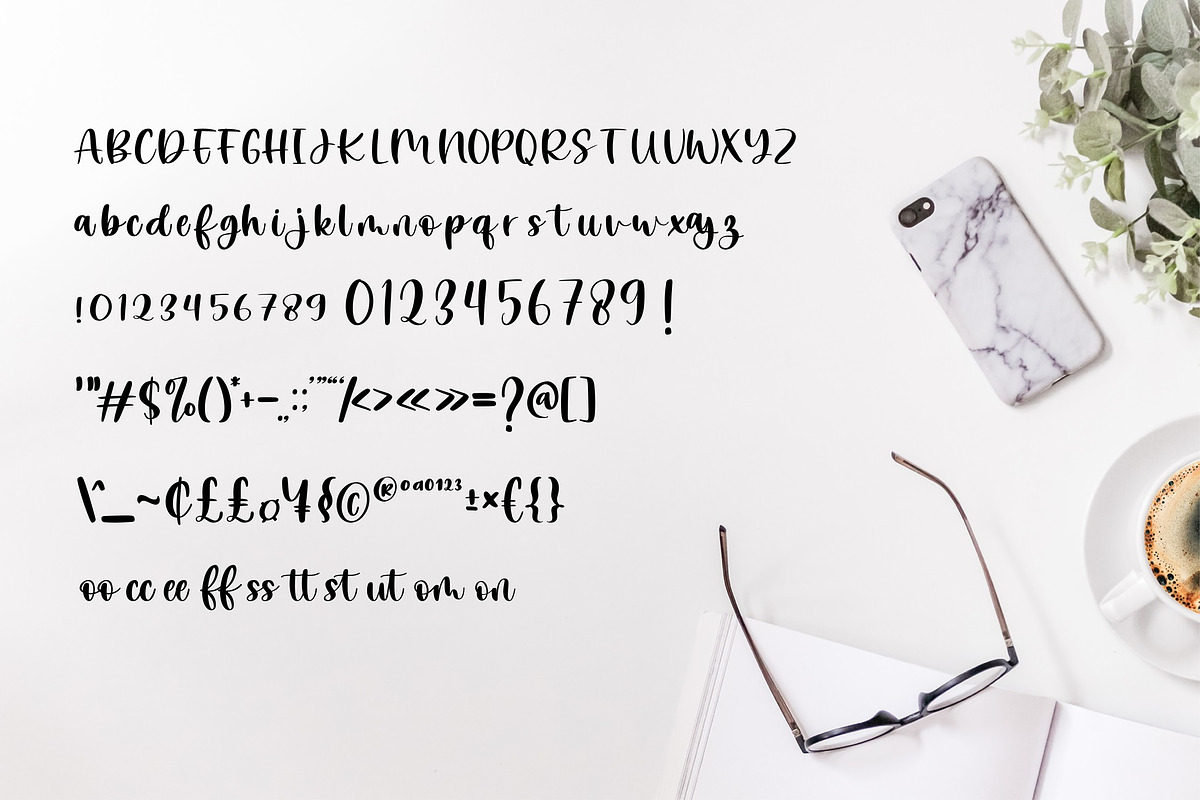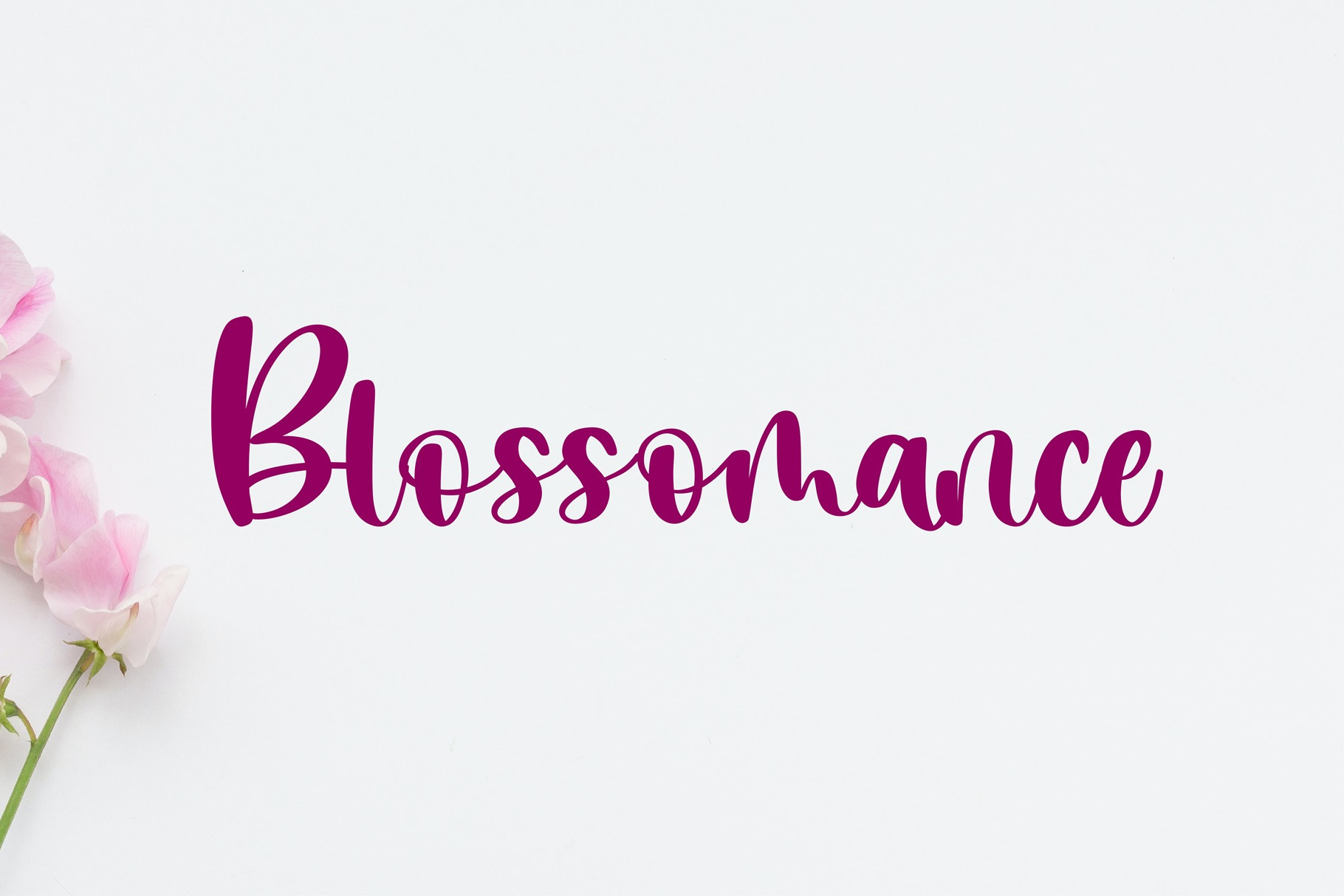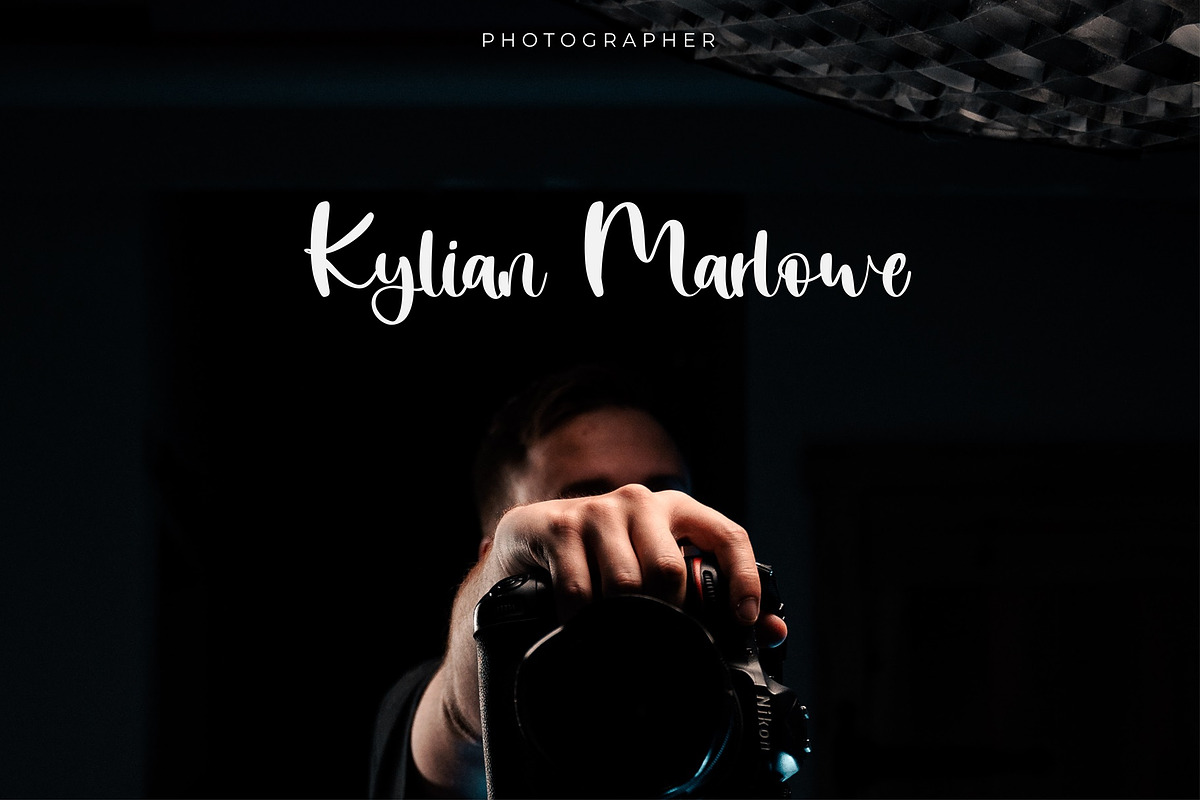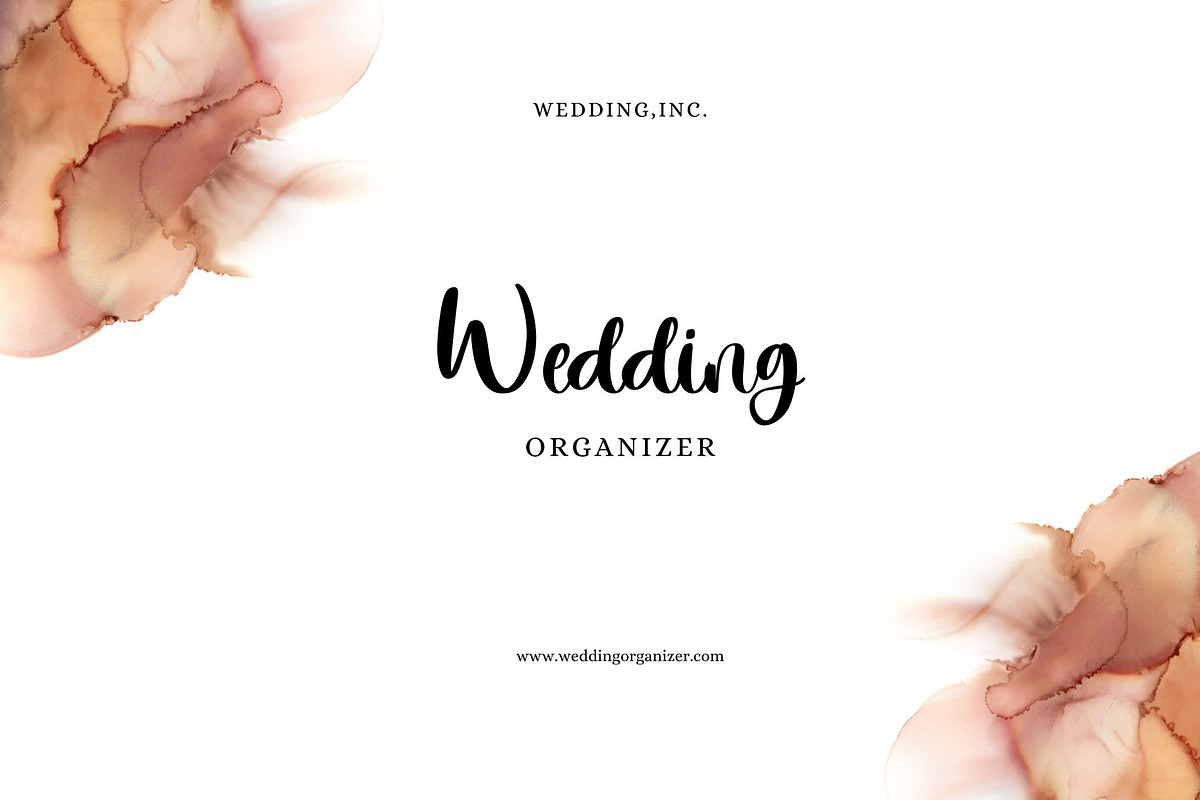
Blossomance Handwritten Font
Blossomance: A Unique Handwriting Font for Creative Expressions. Discover the artistry of our exclusive handwriting font – Blossomance. With its organic flow and floral elegance, this font adds a touch of creativity to invitations, logos, and various creative projects. Experience the beauty of handcrafted letters tailored for readability and artistic flair. Elevate your designs with Blossomance, the perfect handwriting font for a unique and expressive touch.
This font is ideal for headers and titles, digital ads, pamphlets, and flyers, infographics and visual data representations, navigation labels, web layouts, brand logos, apparel designs like T-shirts, and a variety of other applications.